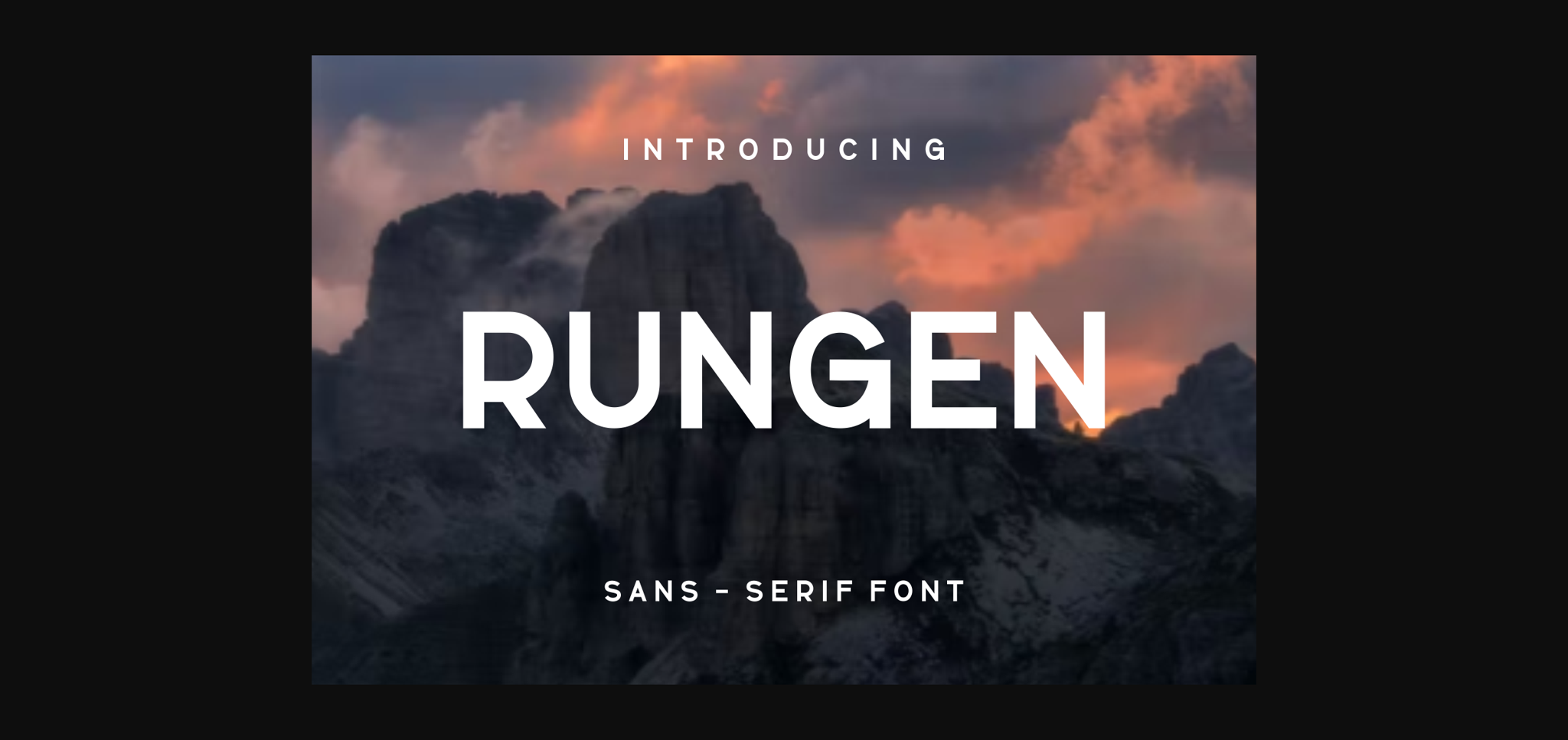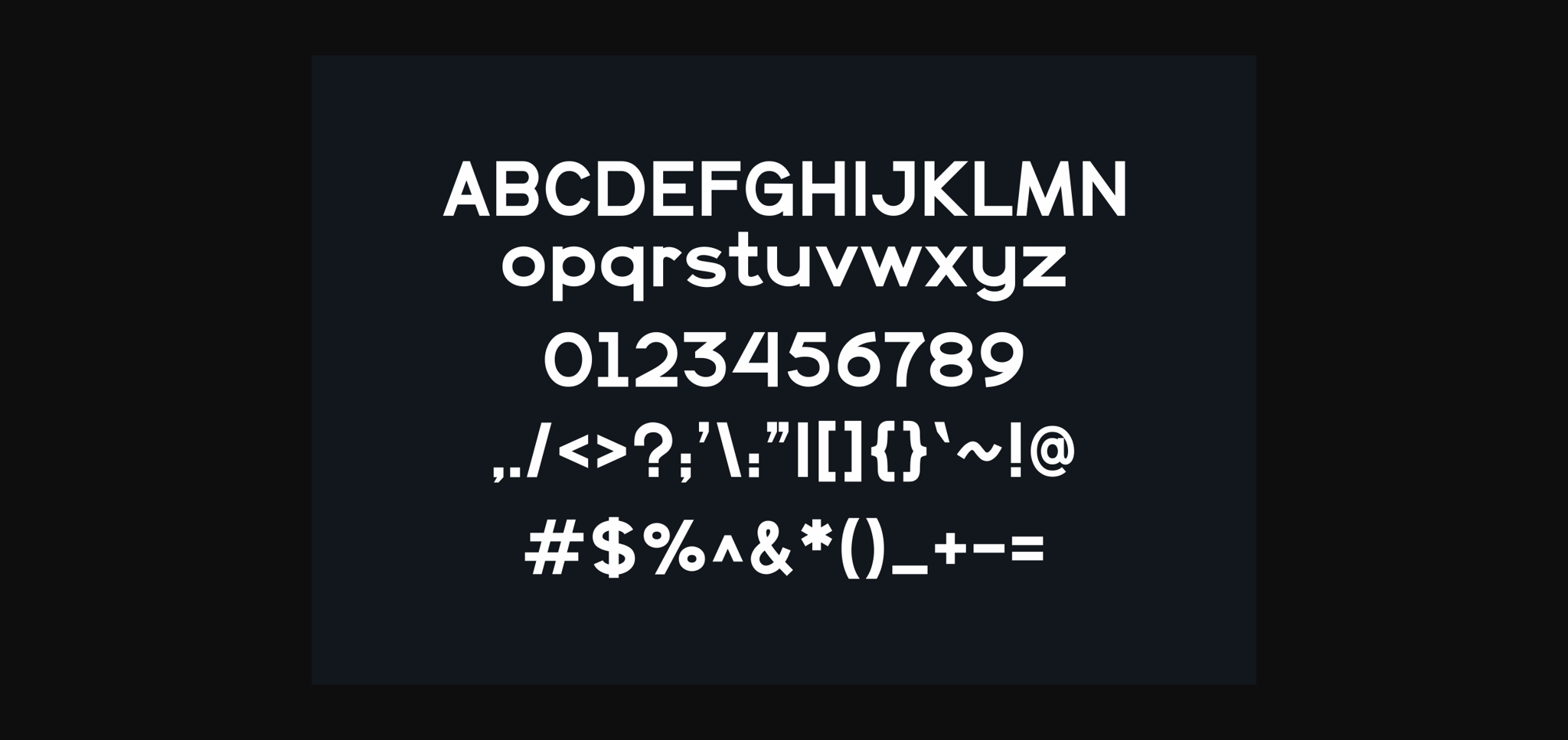
About Rungen Font
Rungen is a cool and unique sans serif font. No matter the topic, this font will be an incredible asset to your fonts’ library, as it has the potential to elevate any creation.